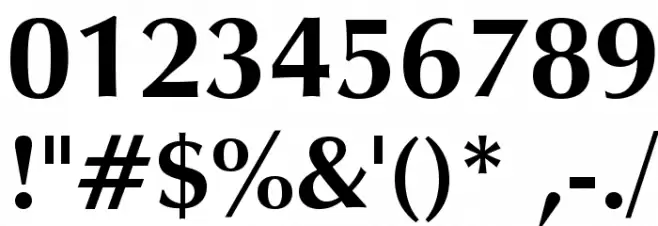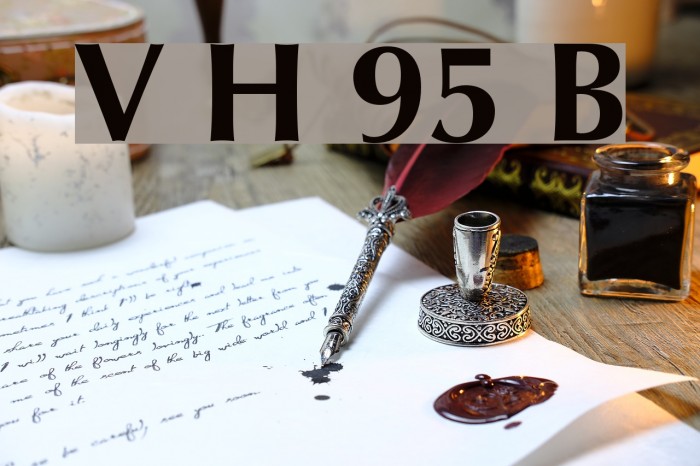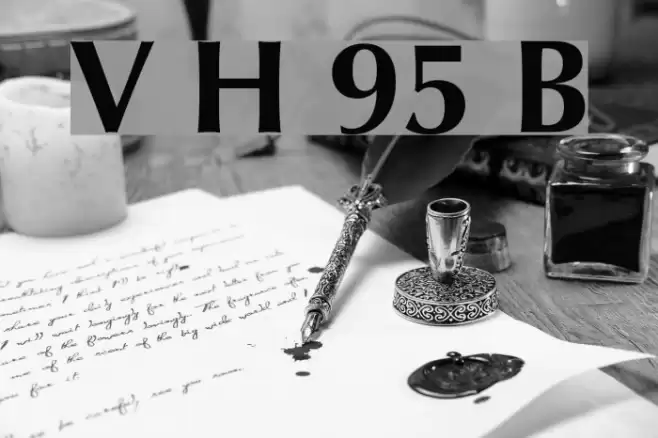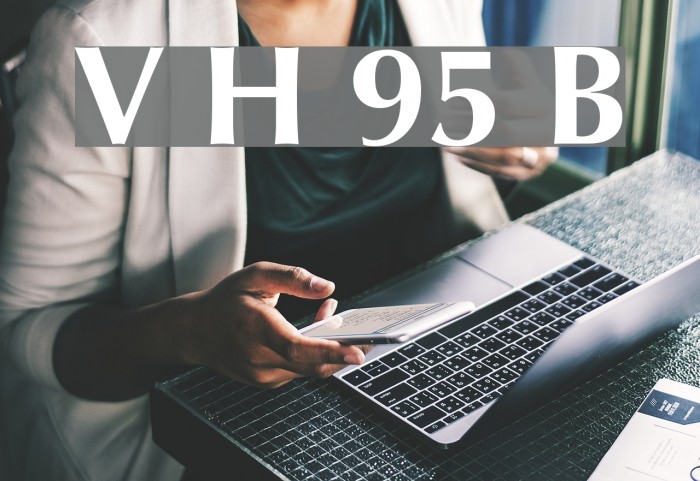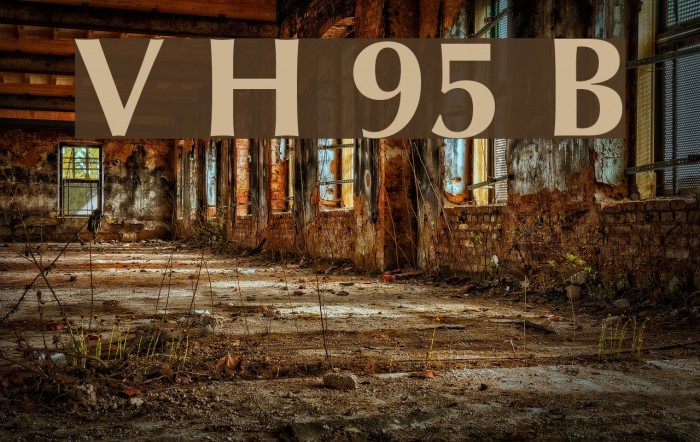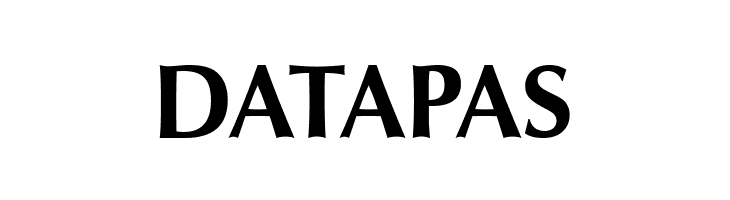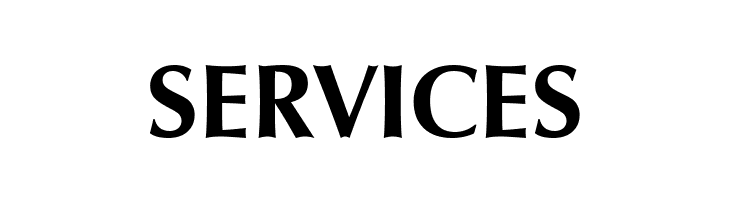
Vera Humana 95 Bold Font
Vera Humana 95 Bold Description
This font exhibits a bold and commanding presence, characterized by its strong and thick strokes. The serifs are pronounced, adding a touch of elegance and traditional appeal. The uppercase letters are tall and imposing, while the lowercase letters maintain a consistent weight, ensuring readability. The numerals are clear and distinct, making them suitable for various applications. Special characters are well-defined, enhancing the font's versatility. Overall, this typeface combines classic serif elements with a modern boldness, making it suitable for impactful designs.
A bold serif font with strong strokes and pronounced serifs from Formal fonts.
• Contrast: High
• Overall Style: Classic
• Use Case: Headlines, Logos, Editorial design